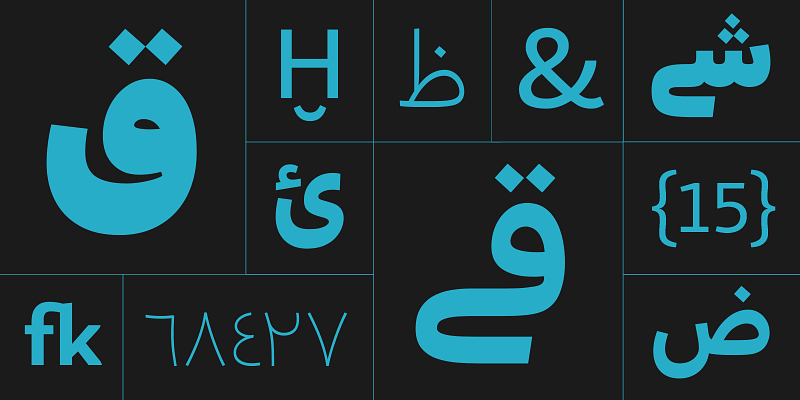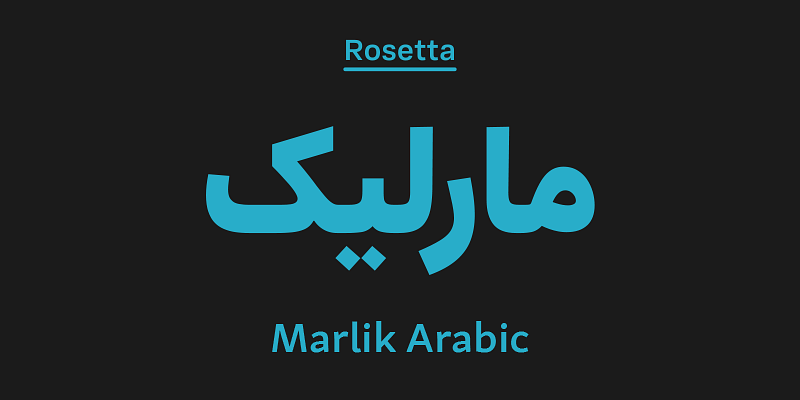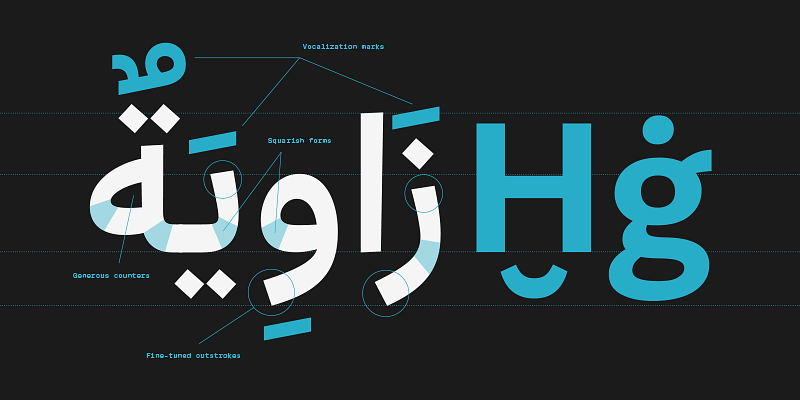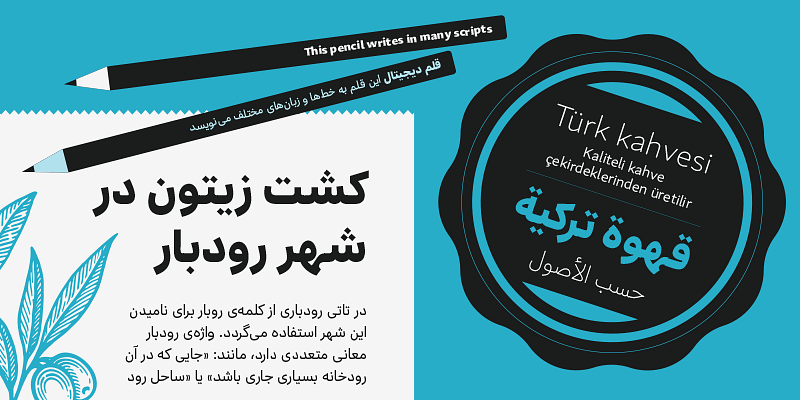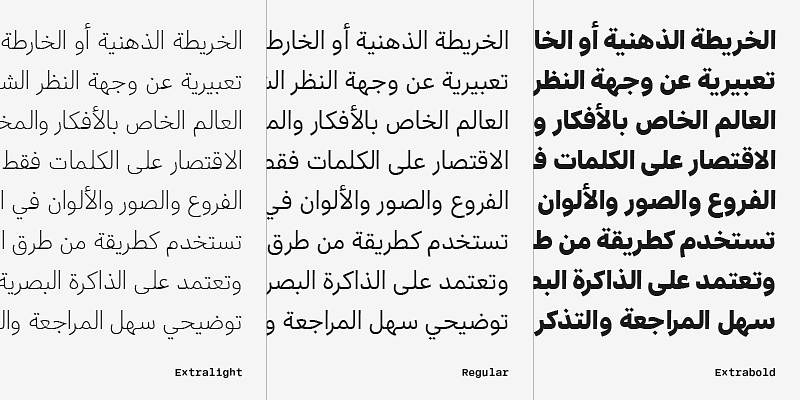
Marlik is a contemporary Arabic typeface that reflects the modernist aesthetics of ‘simplified’ Arabic dating back to the hot-metal typesetting era, but restores the conventional Arabic proportions essential to a good reading experience.